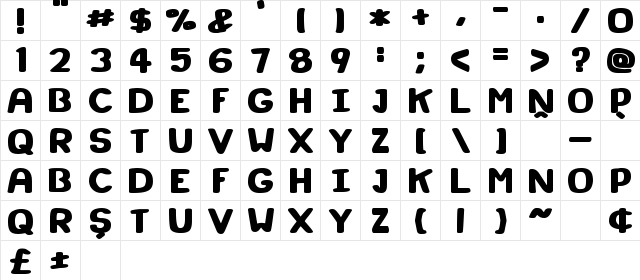
Super Marker Regular
Regular ·  Joseph Dawson ·
DesignerJoseph Dawson
Design Context for Super Marker Typeface
Super Marker offers clean, dependable letterforms without strong stylistic allegiance, making it a practical choice for designers who need flexibility.